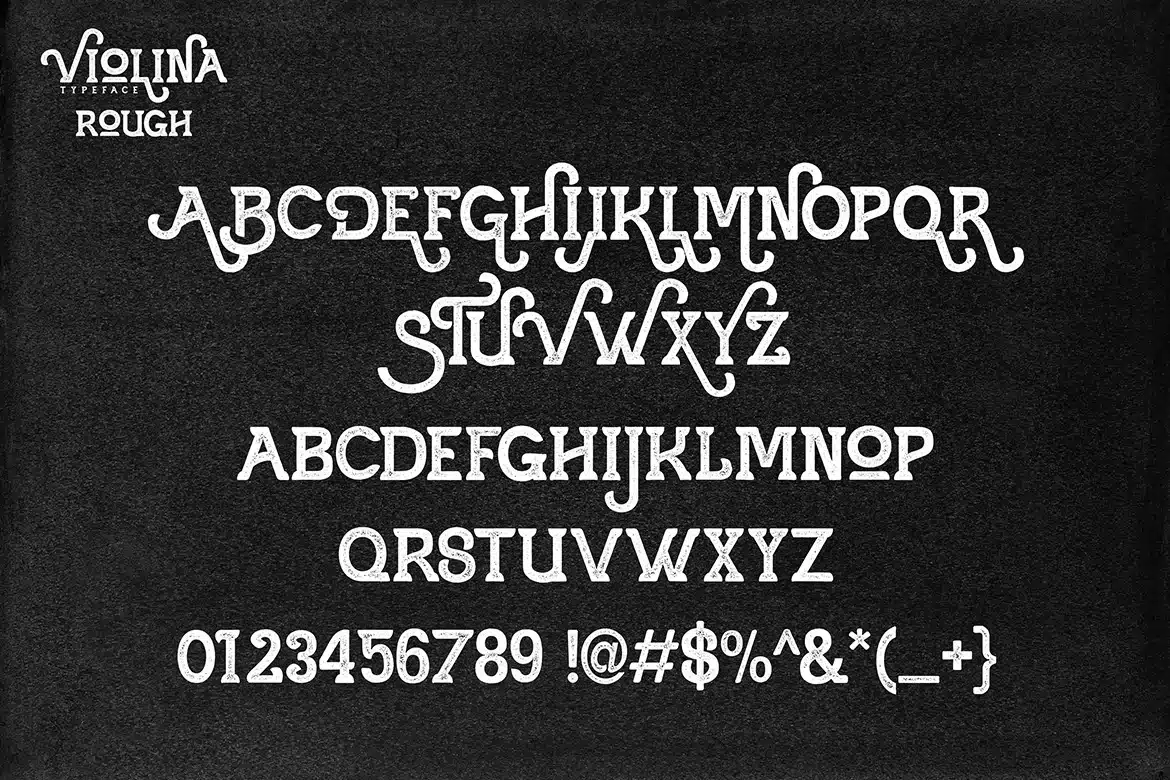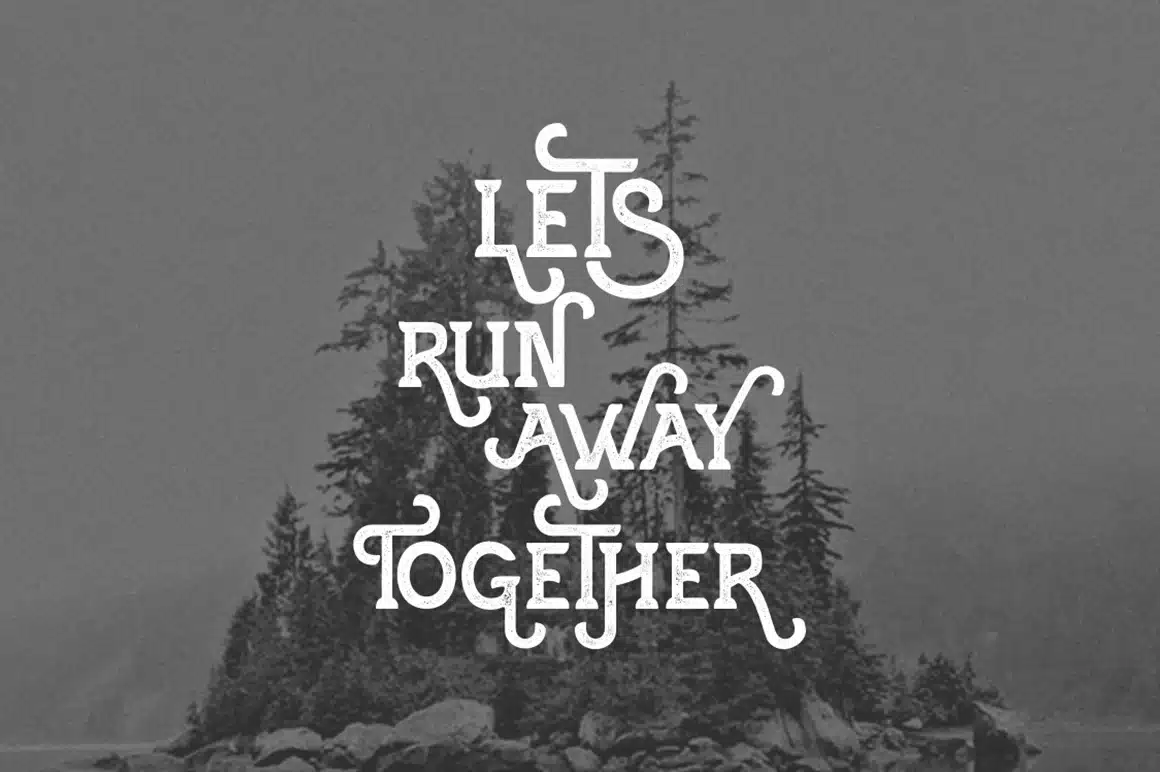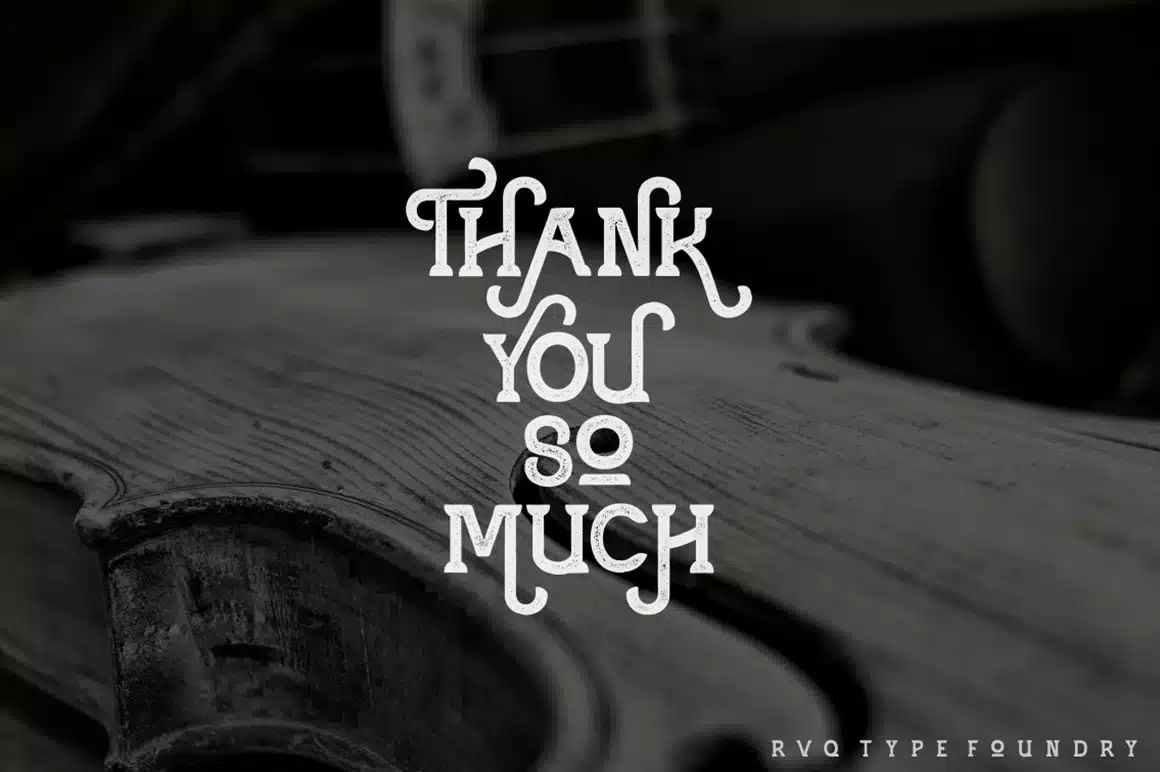
Violina Typeface Font
Violina Typeface is new font from Rvq type foundry, the font with simple, minimalistic, retro and vintage feel character set. Come with 2 styles, a clean and rough to create an option for the designs. To create the beautiful combination, just mix the uppercase and lowercase then mix with the alternative glyphs. The Violina typeface includes a full set of capital and lowercase letters, as well as multi-lingual support, currency figures, numerals, punctuation & some extra glyphs.